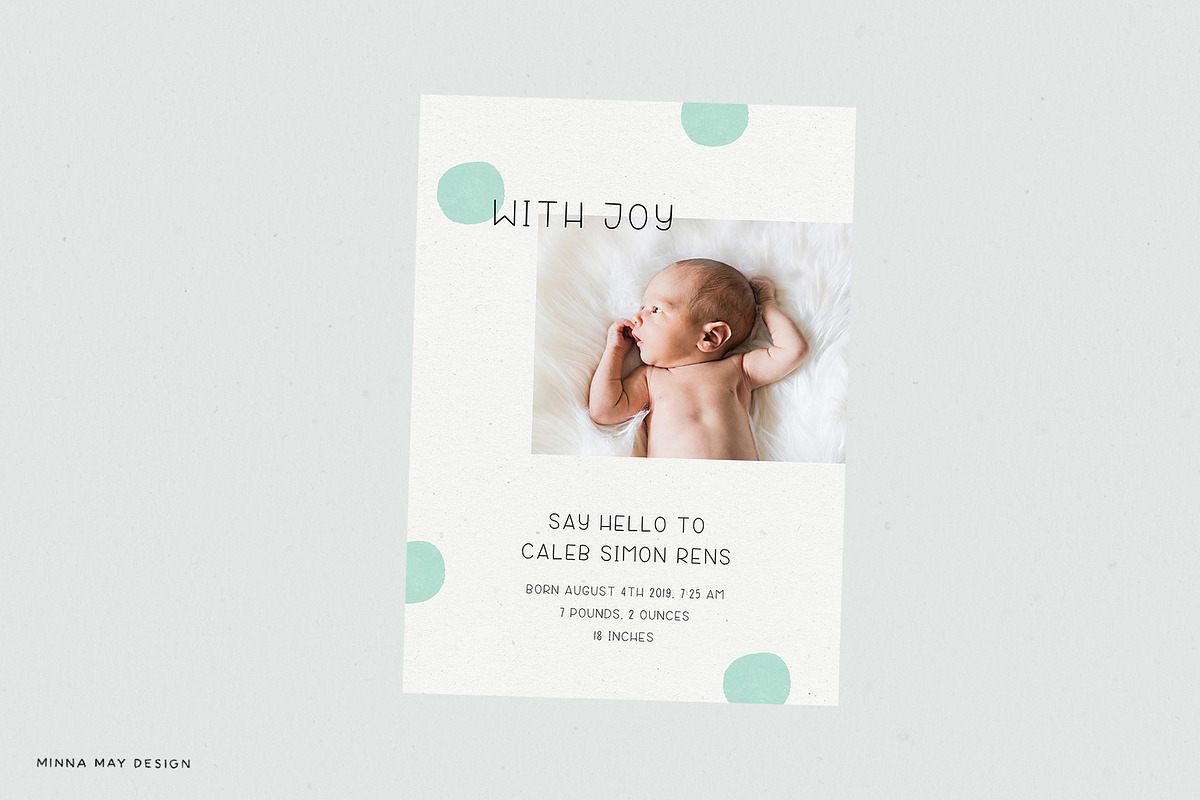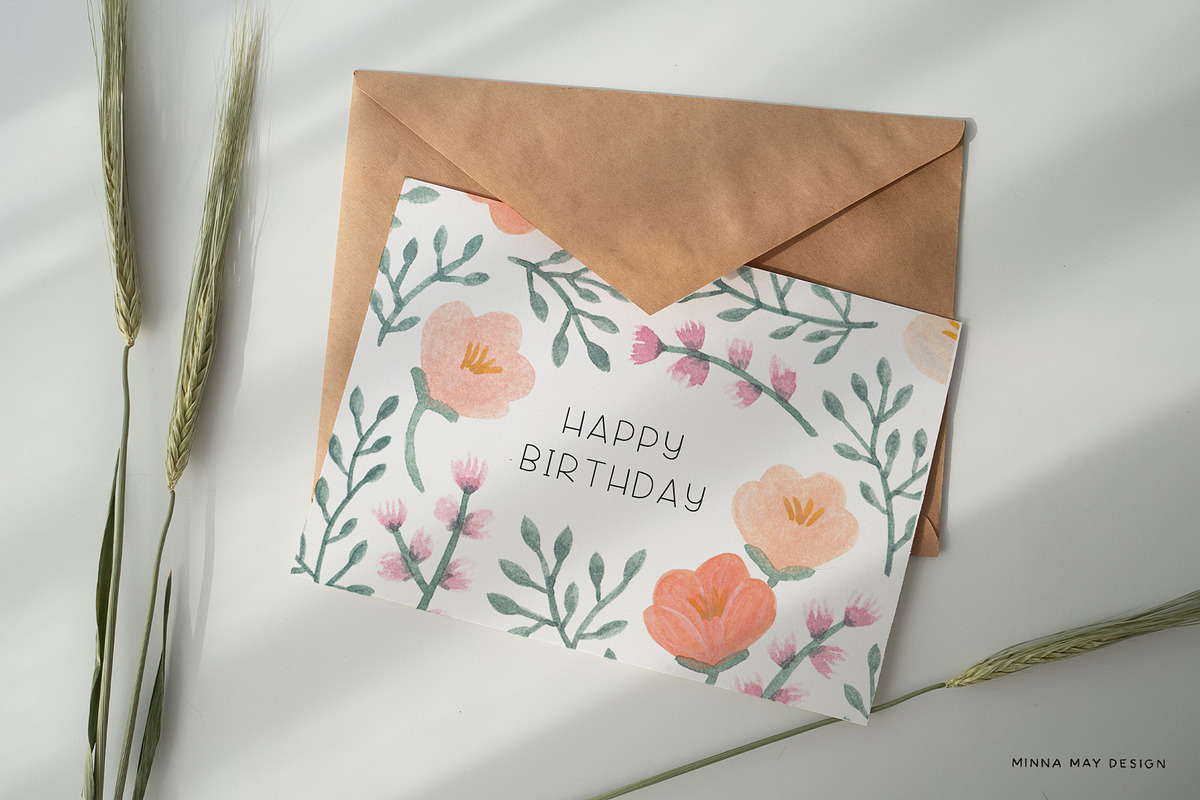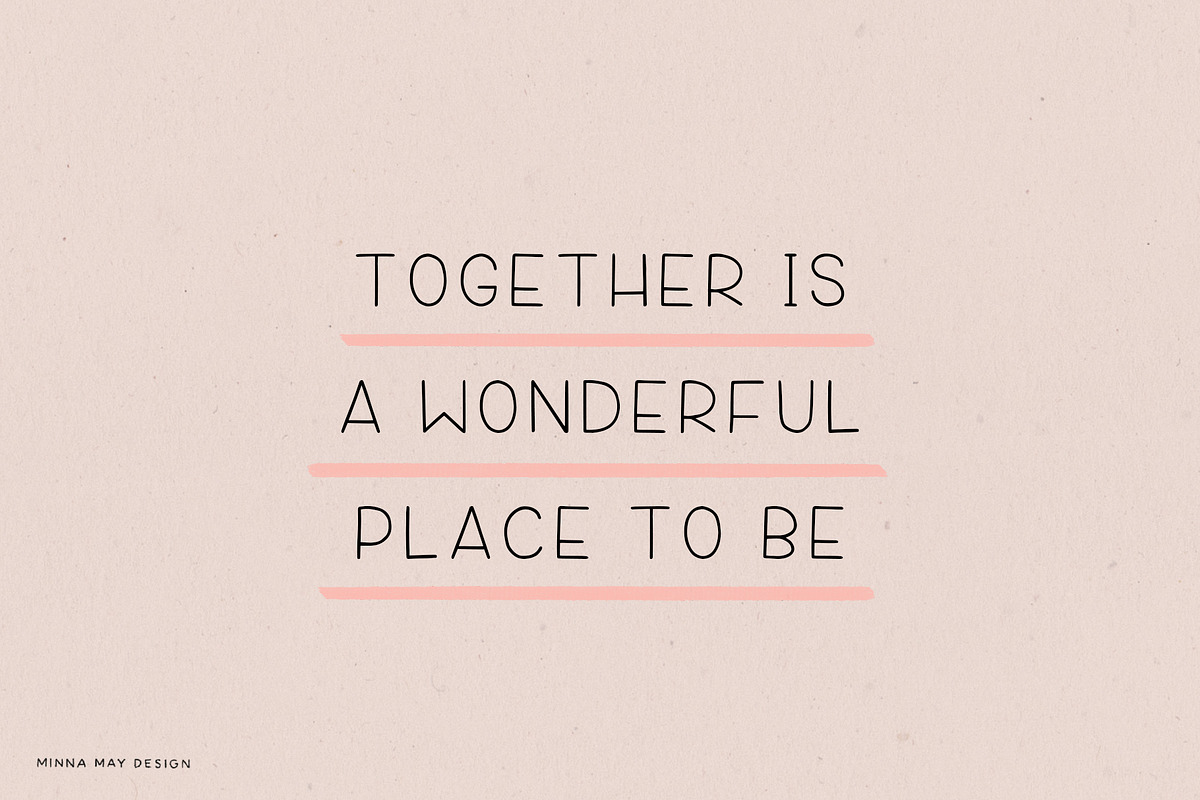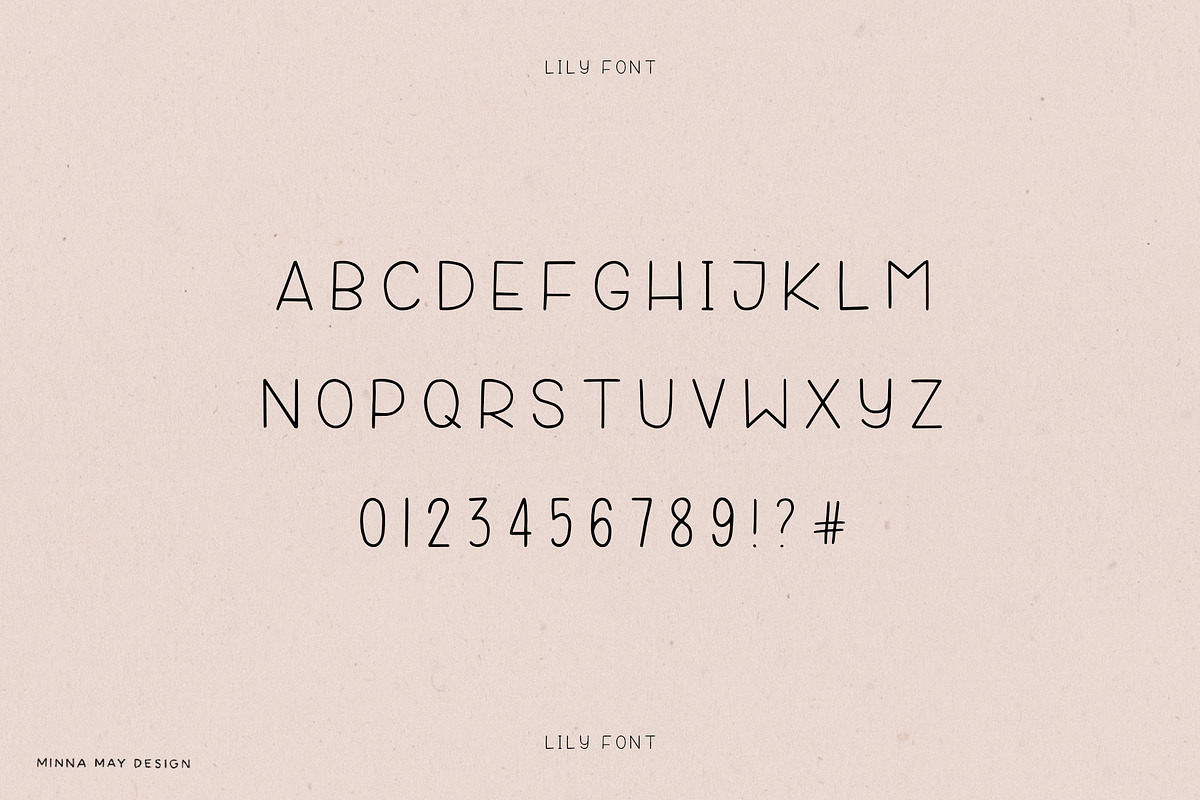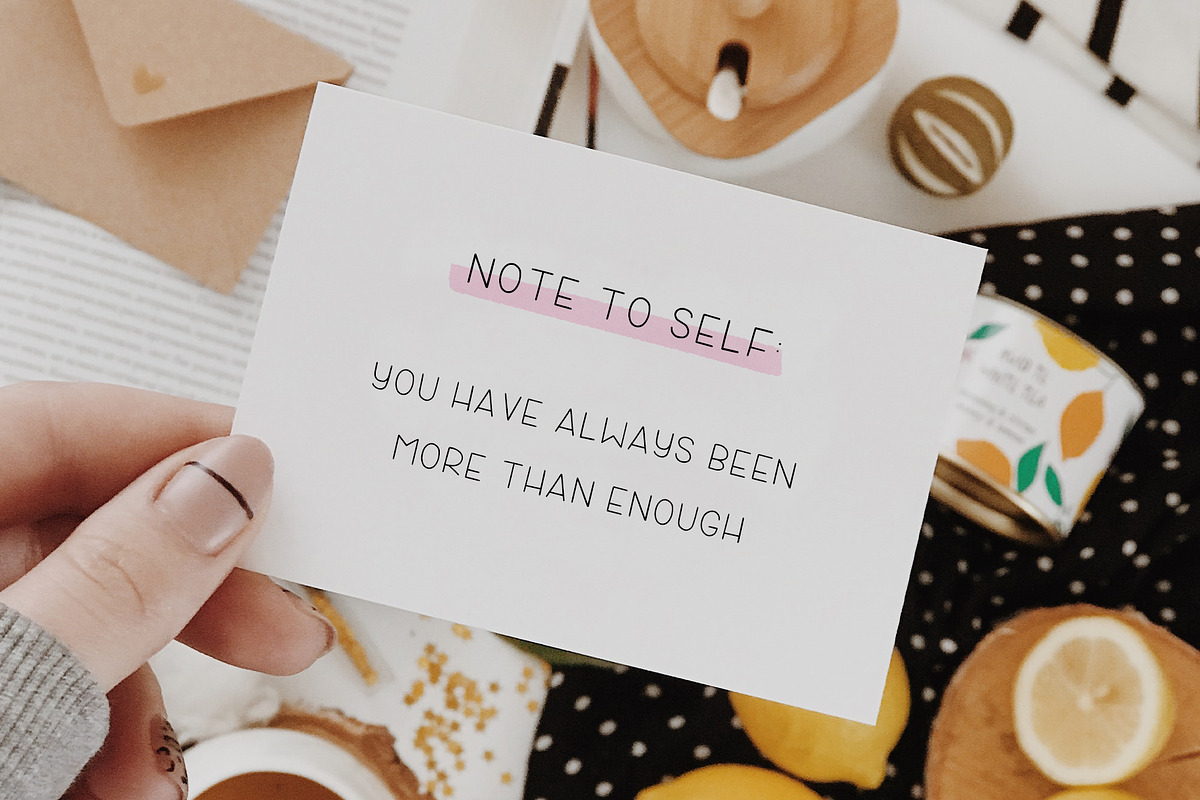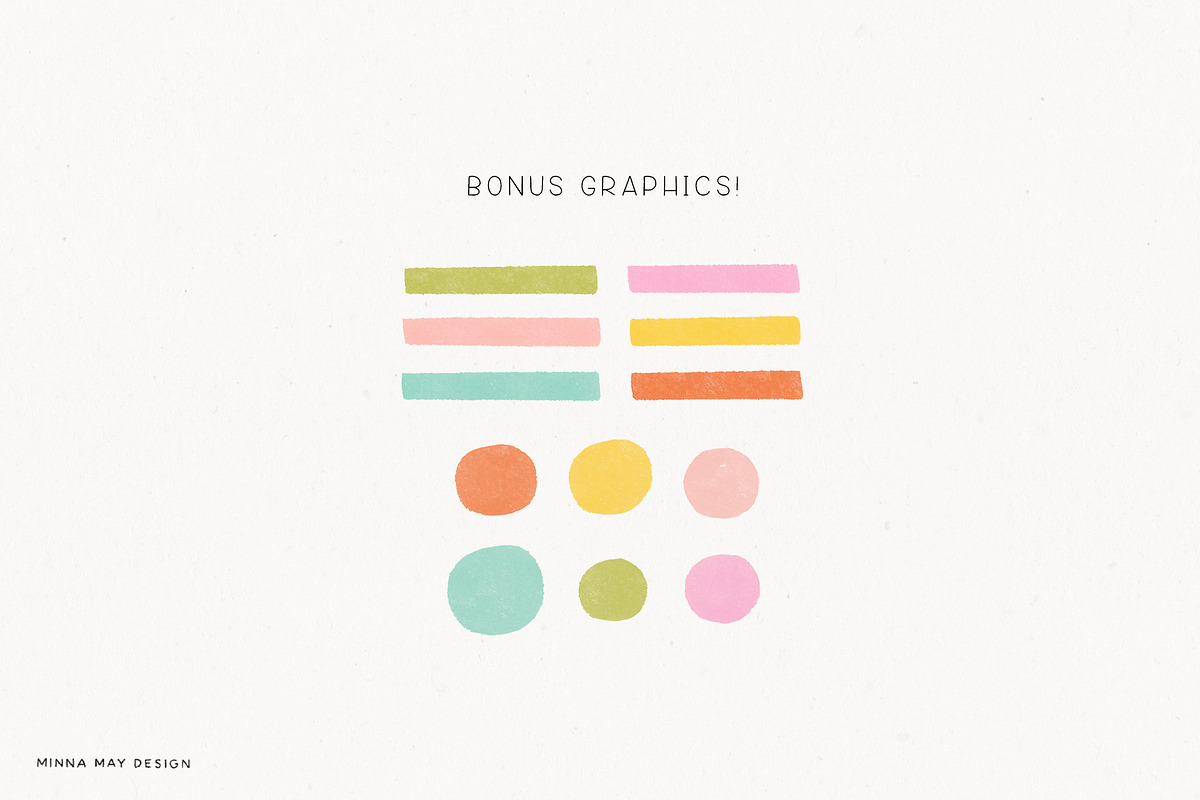
Lily - Cute Simple Handlettered Font
LILY - A cute and simple hand-lettered sans serif font plus some bonus graphics! This font would be perfect for party invitations, baby showers, birthday cards and more.
• Alphabet is uppercase only
• Includes numbers and punctuation